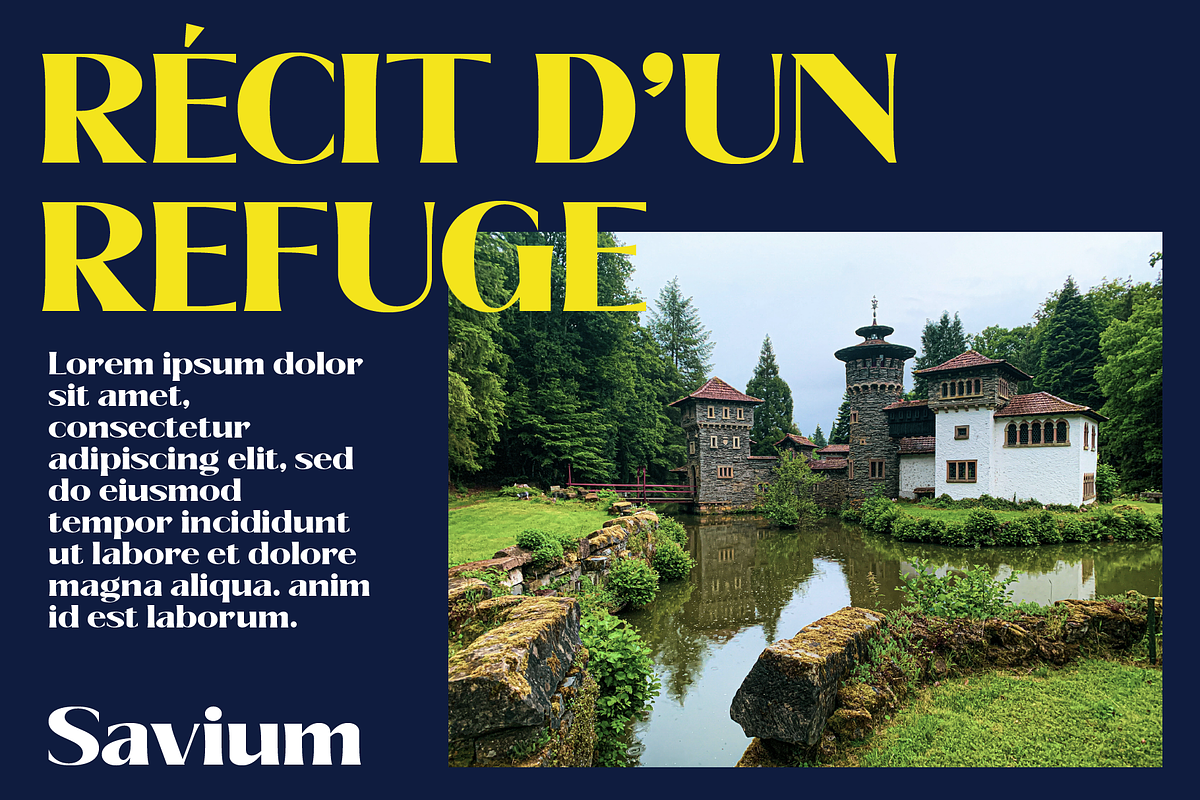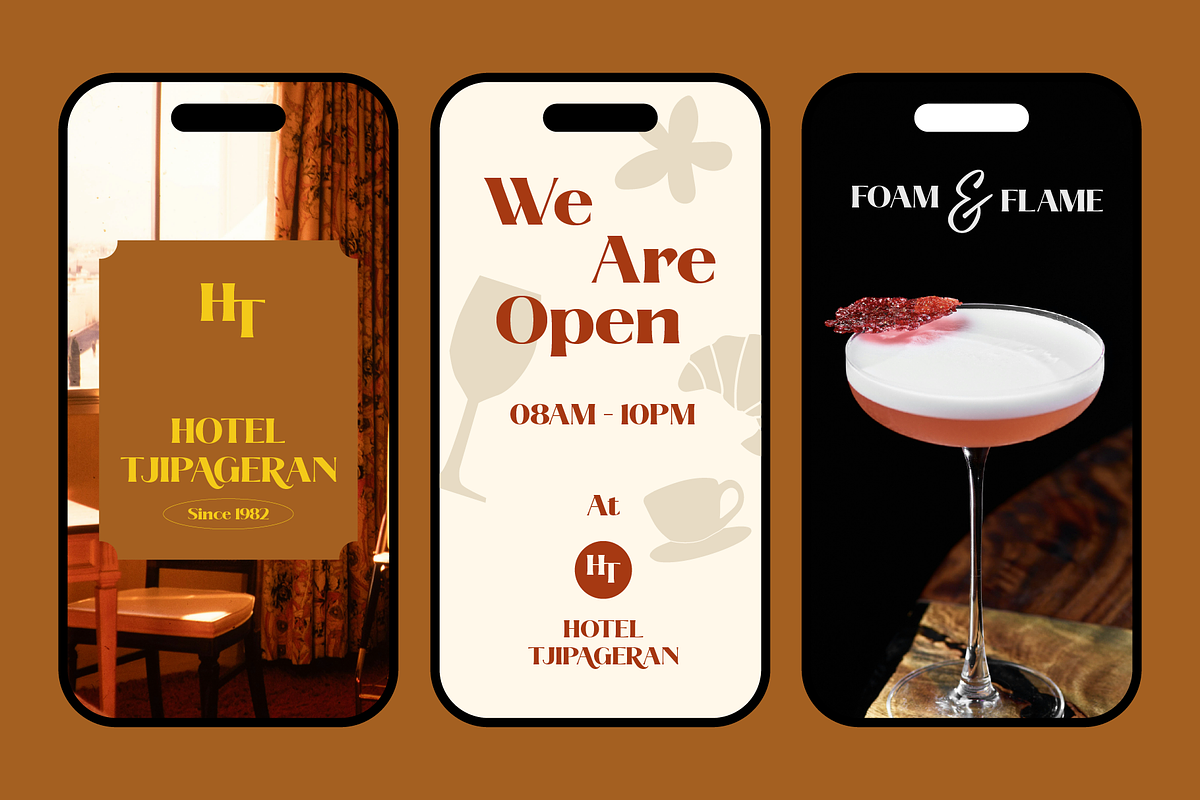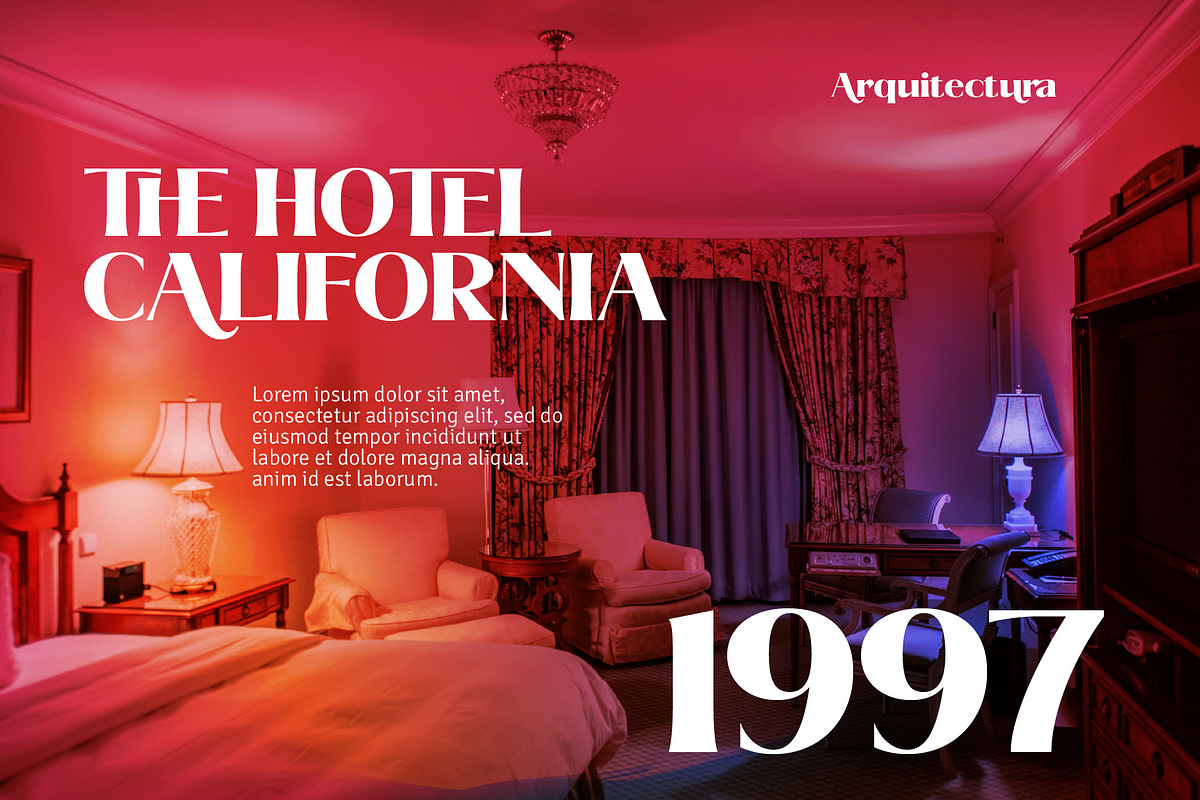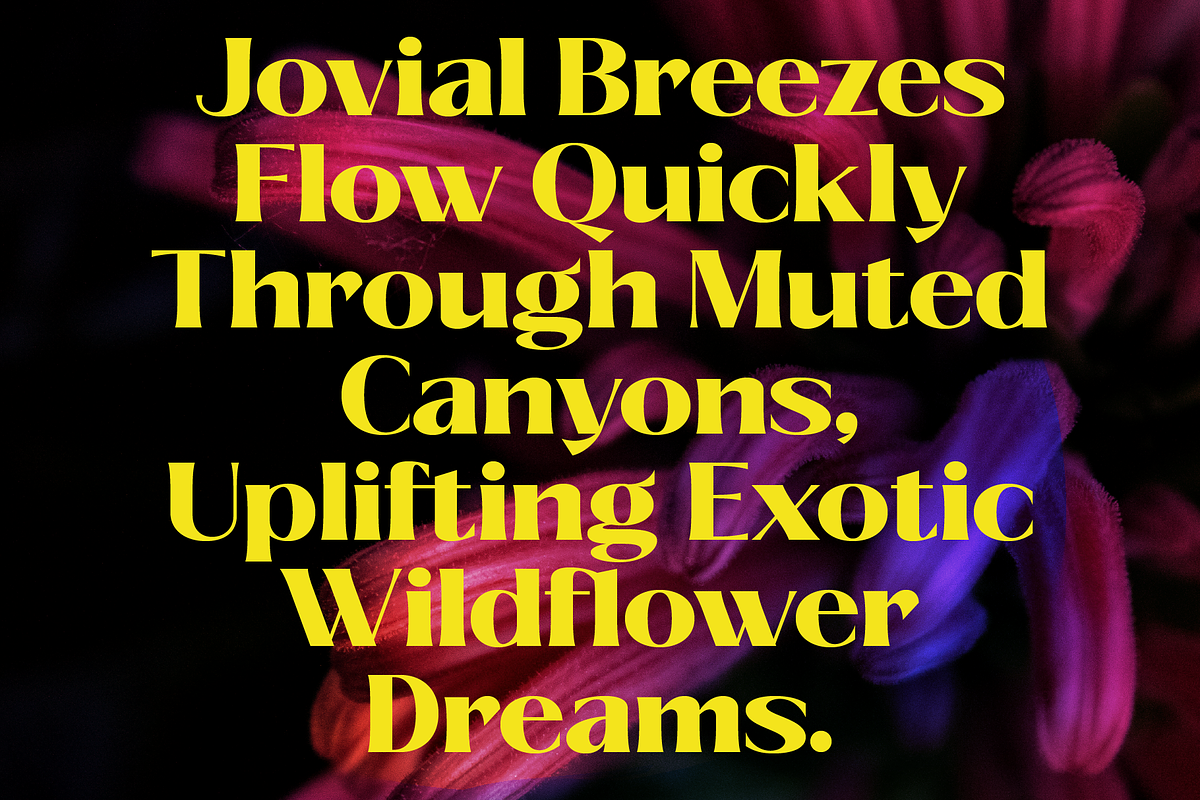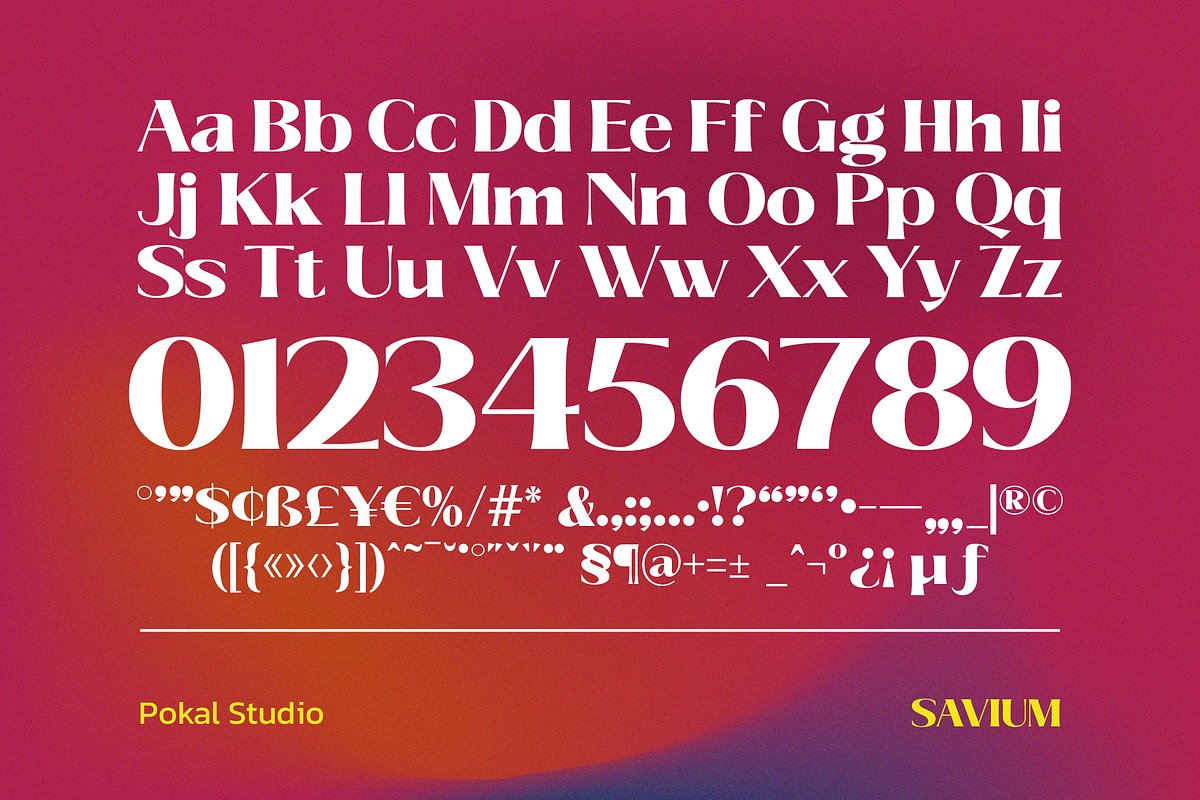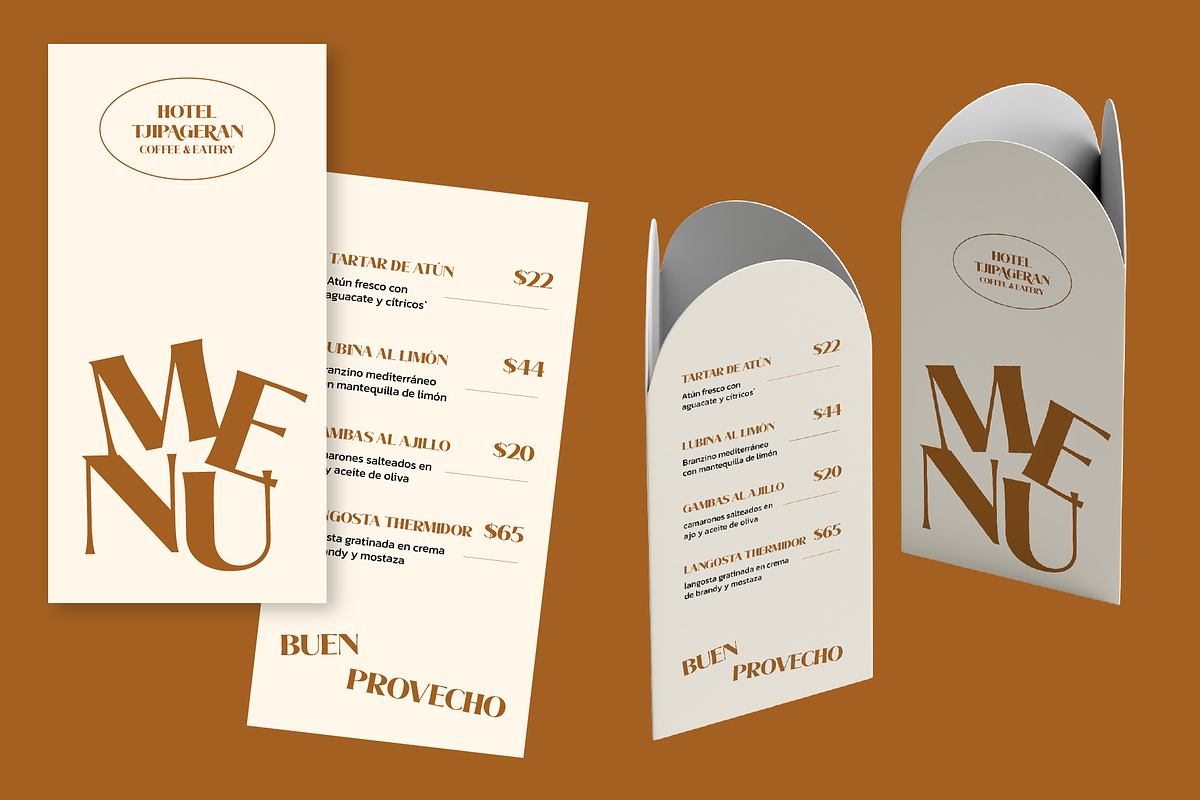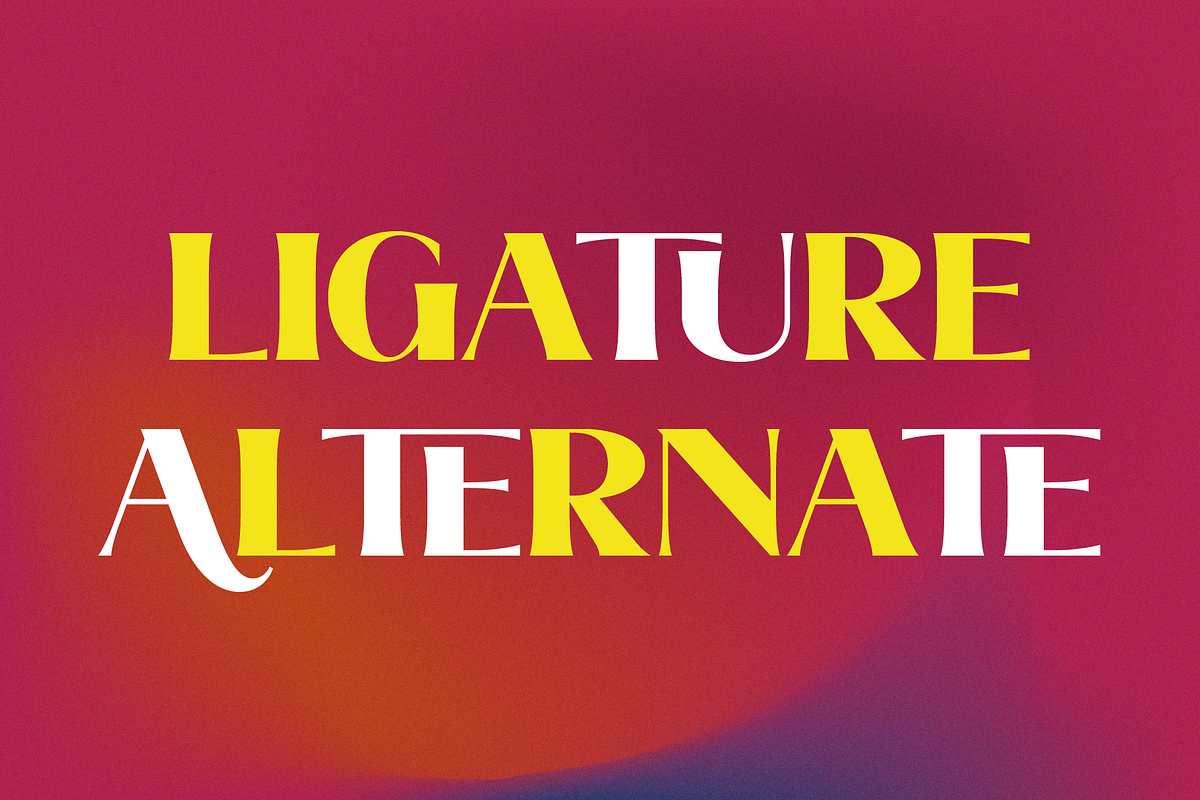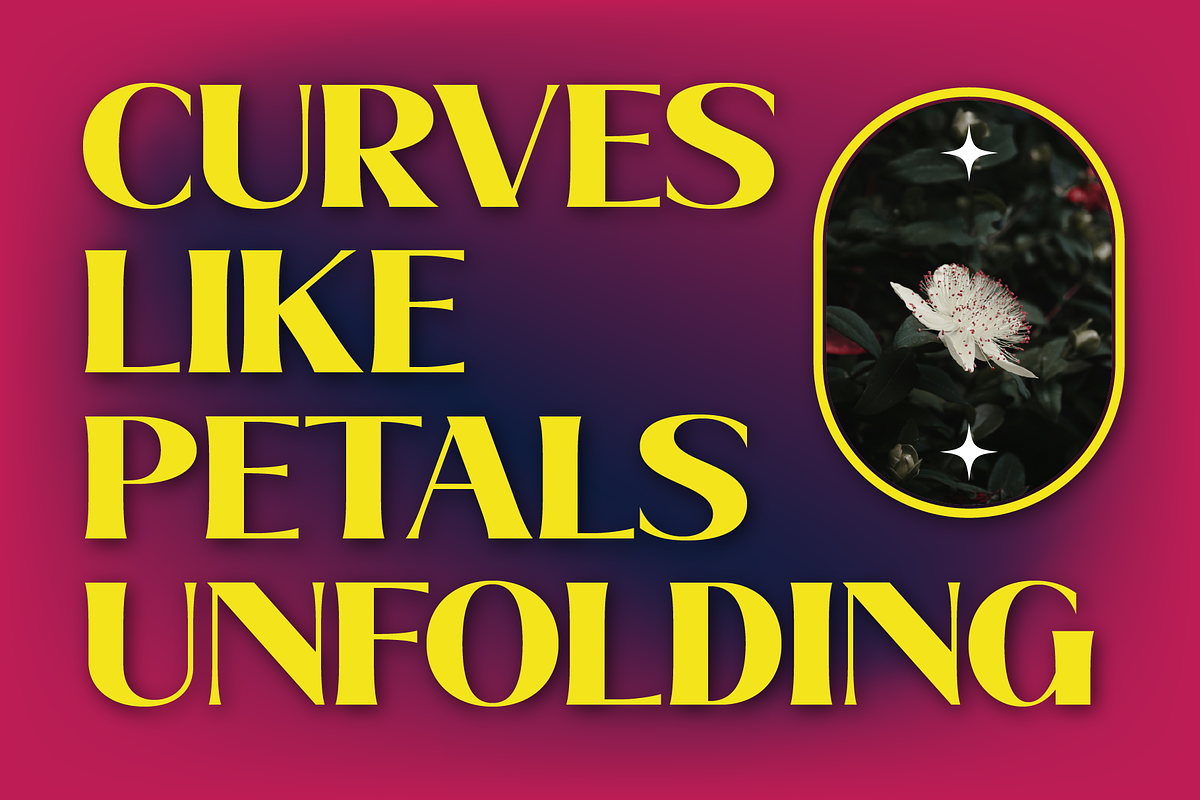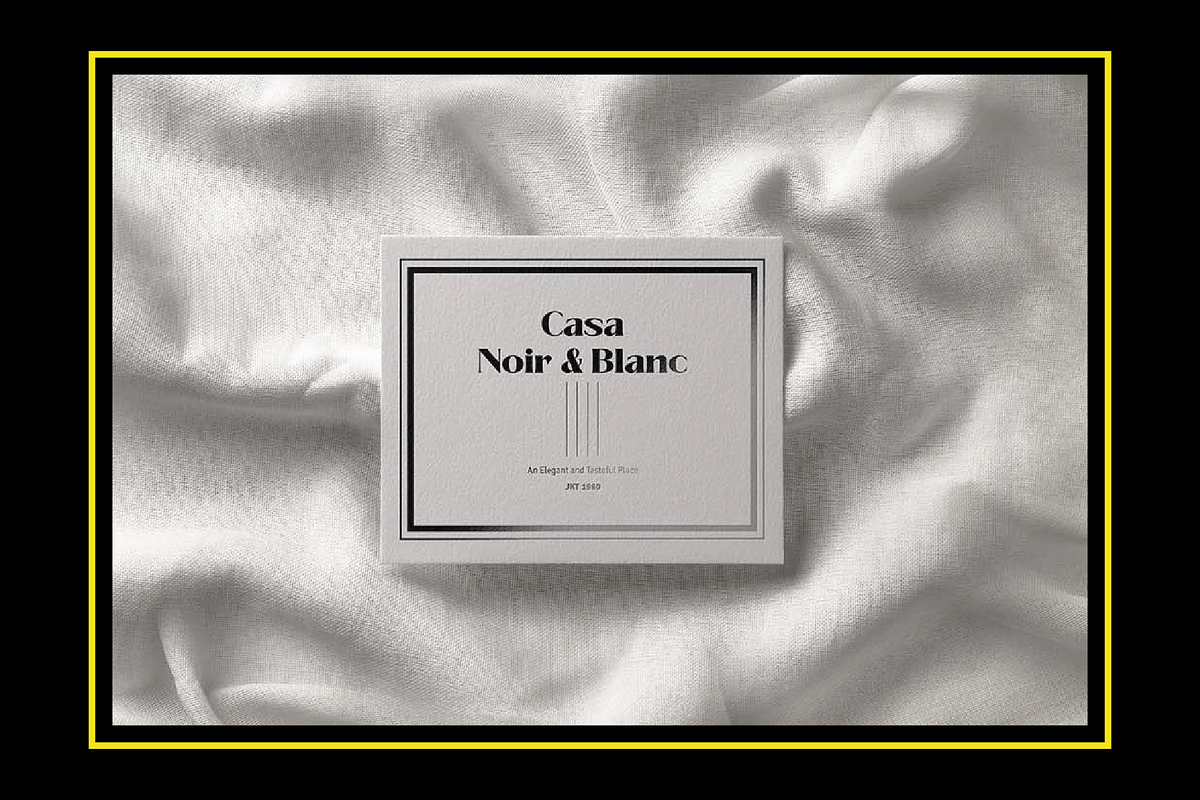
Savium - High Contrast Serif Font
Savium is an elegant high-contrast serif display font designed with classic proportions and refined curves. Its bold yet sophisticated style makes it perfect for editorial design, branding, logos, packaging, posters, and magazine titles.
Created for designers who want to bring a touch of luxury and timeless elegance, Savium works beautifully in both digital and print projects. The typeface includes stylistic alternates, ligatures, and multilingual support, giving you the flexibility to craft unique and polished typography.
Whether you’re working on fashion branding, lifestyle editorials, wedding stationery, or modern packaging, Savium delivers a striking balance of style and readability.
- Stylistic alternates